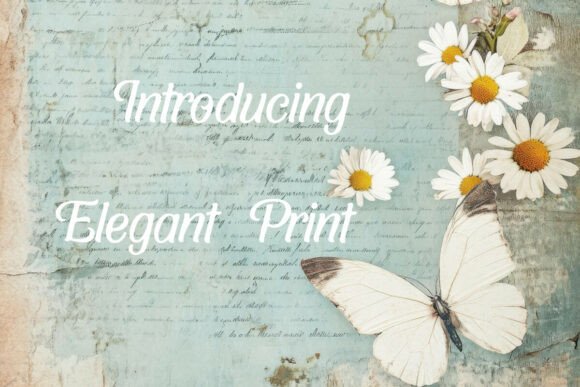
Elegant Print: A Script Font for Effortless Brand Charm
I opened a blank brand board last week for a project I had been looking forward to for months. A small skincare line run by a friend who specializes in handcrafted balms and serums. She wanted something that felt personal, warm, and just a little bit refined. Not corporate, not cold. She wanted her packaging to look like it belonged on a shelf next to handmade pottery and linen journals. I had a few typefaces in mind, but none of them quite captured the balance she needed. That is when I tested Elegant Print for the first time.
Elegant Print is a script font from the Script Amp category, and honestly, it caught my attention the moment I previewed it. The smooth contours and refined style immediately felt like they belonged in a packaging project where charm and clarity both matter. It is not one of those overly flourished scripts that look beautiful but become unreadable at small sizes. Instead, it carries a polished ease that reads well across different applications. That is rarer than most designers expect.
Why Elegant Print Works for Real Branding Projects
When I dropped the font into my first logo draft for the skincare line, the effect was immediate. The wordmark looked like it had been custom drawn for the brand. The gentle flow of the letterforms gave the name a soft, personal feel without sacrificing legibility. That is the first thing I notice with any script font I test: can I read it easily at logo size and also at text size? Elegant Print passed that test without hesitation.
For anyone working in brand identity, packaging design, or small business branding, finding a font that bridges warmth and professionalism is a real challenge. Many script fonts lean too far into decorative territory. They work fine on a poster or a wedding invitation but fall apart on a product label or a website header. Elegant Print sits in a different space. It feels approachable but deliberate. It has enough personality to carry a brand story but enough restraint to remain versatile.
A Closer Look at the Font’s Visual Character
The letterforms in Elegant Print have a natural rhythm. The strokes feel fluid without being exaggerated, and there is a subtle contrast between thick and thin lines that adds depth without becoming distracting. It reminded me of hand-lettered signage from old apothecaries and small ateliers, but with a clean finish that works for modern design. The mood is warm, sincere, and slightly nostalgic, but not vintage in a theatrical way. It feels lived in, not staged.
When I placed the font on a packaging mockup for a lavender balm tin, the results surprised me. The name of the product sat neatly on the lid, clear enough to read from a short distance but delicate enough to match the organic feel of the brand. The smooth contours of the typeface complemented the soft color palette I had chosen. It did not compete with the illustration. It supported it.
Using Elegant Print in Logo Design and Brand Identity
For the skincare brand logo, I used Elegant Print as the primary wordmark. I paired it with a clean sans serif for the tagline and supporting information. That pairing worked because the script brought the warmth and the sans serif provided the structure. The logo felt balanced. The brand perception shifted from ordinary to intentional. My client noticed it immediately when I showed her the first mockup. She said it looked like the brand already existed in a beautiful little shop somewhere.
That is the kind of reaction you want from a font. It makes the design feel inevitable, like it was always meant to look that way. Elegant Print does not try to be the loudest element on the page. Instead, it draws people in with its steady charm and lets the brand message take center stage.
Where Elegant Print Shines Across Materials
I tested Elegant Print in several contexts during this project. Here is where it performed especially well:
- Product labels and packaging: The font remains readable at small sizes, which is critical for ingredient lists and product names. Its smooth contours keep the label looking cohesive.
- Business cards and stationery: Printed at 9 or 10 point, the script still holds its shape. It does not blur into a messy line the way some delicate scripts do.
- Social media graphics: Used as a headline font on Instagram posts, Elegant Print adds a refined touch without feeling overly formal. It pairs naturally with soft photography and neutral backgrounds.
- Website headers: The font loads cleanly in web use and keeps its personality at larger display sizes. It works especially well for hero section titles and brand story headings.
- Shop signage and printed marketing: Whether on a small hanging sign or a flyer, the font carries a handmade quality that resonates with local audiences.
Readability, Hierarchy, and Brand Perception
One concern designers often have with script fonts is readability in longer passages. Elegant Print is not intended for body text, and I would not recommend using it for paragraphs or extended reading. But for short-form content like taglines, product names, quotes, and accent headlines, it performs beautifully. It creates a clear visual hierarchy when paired with a supporting serif or sans serif typeface.